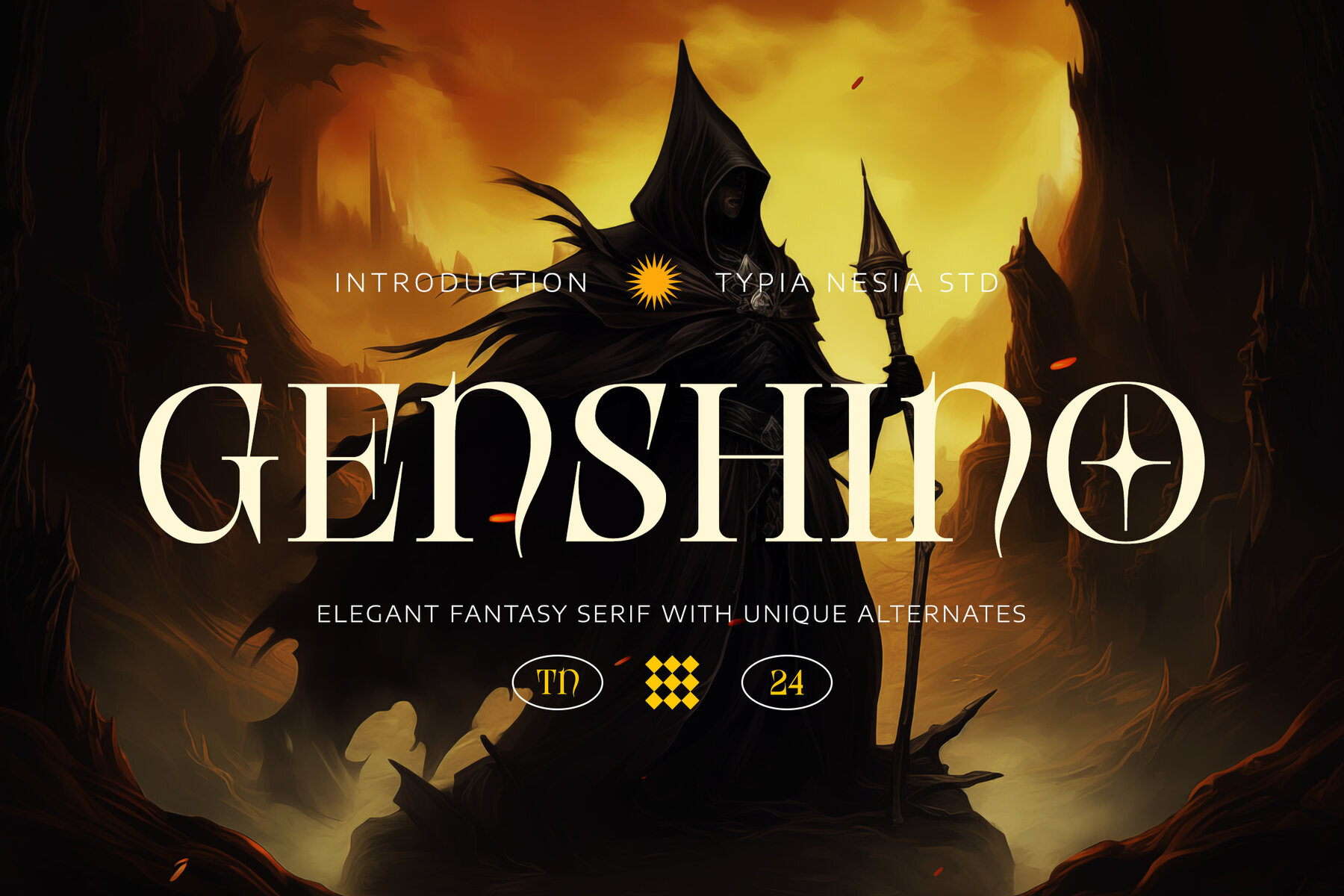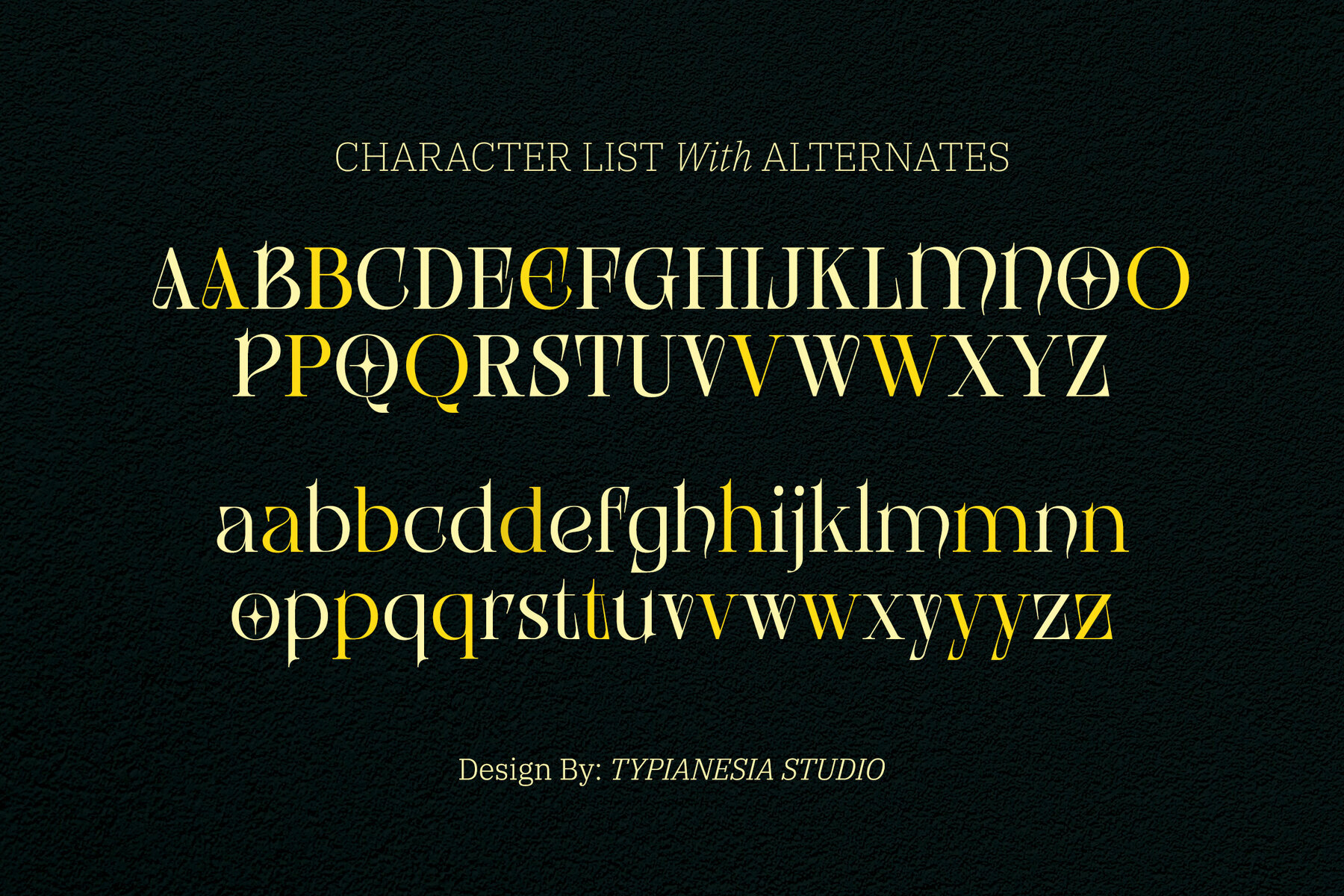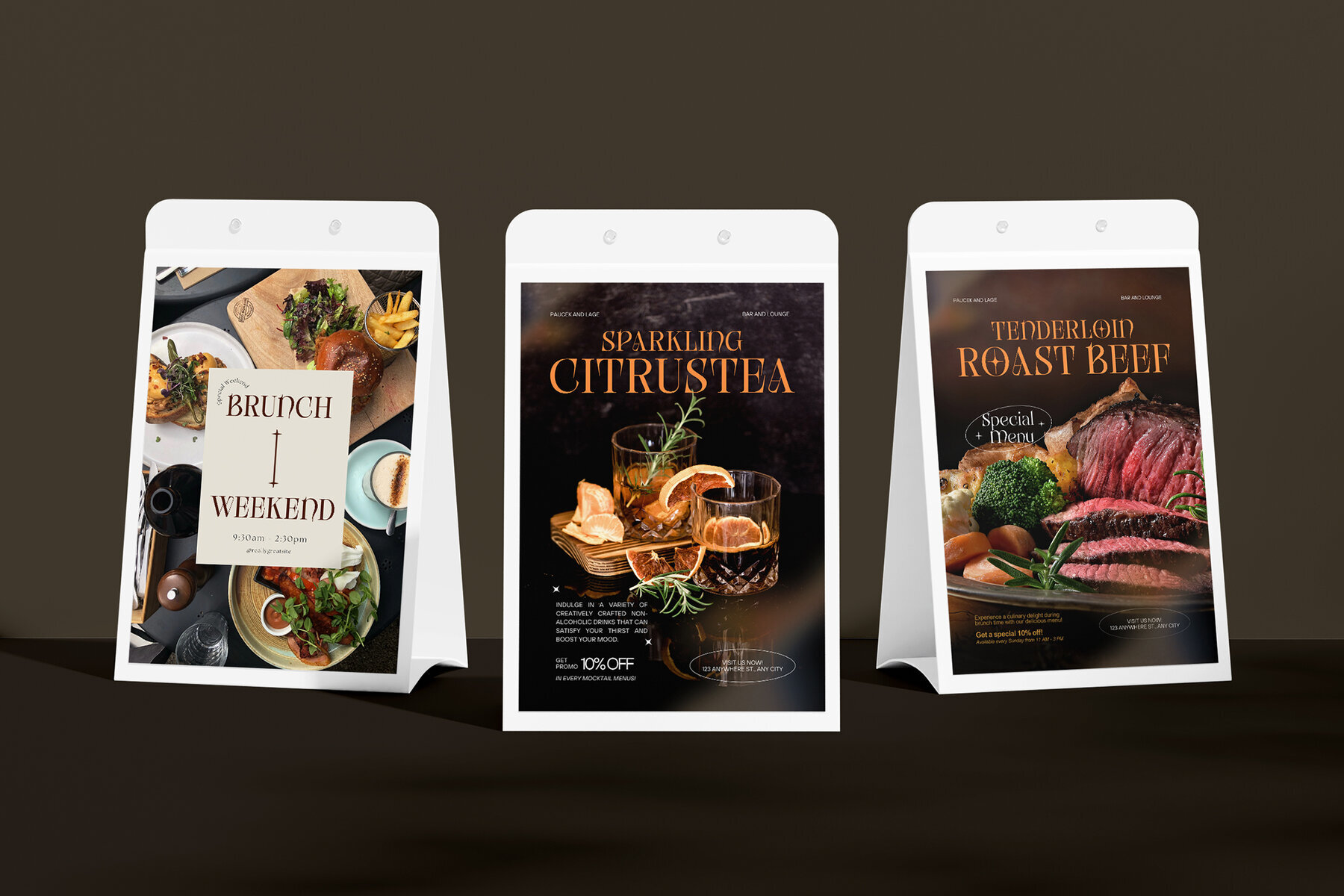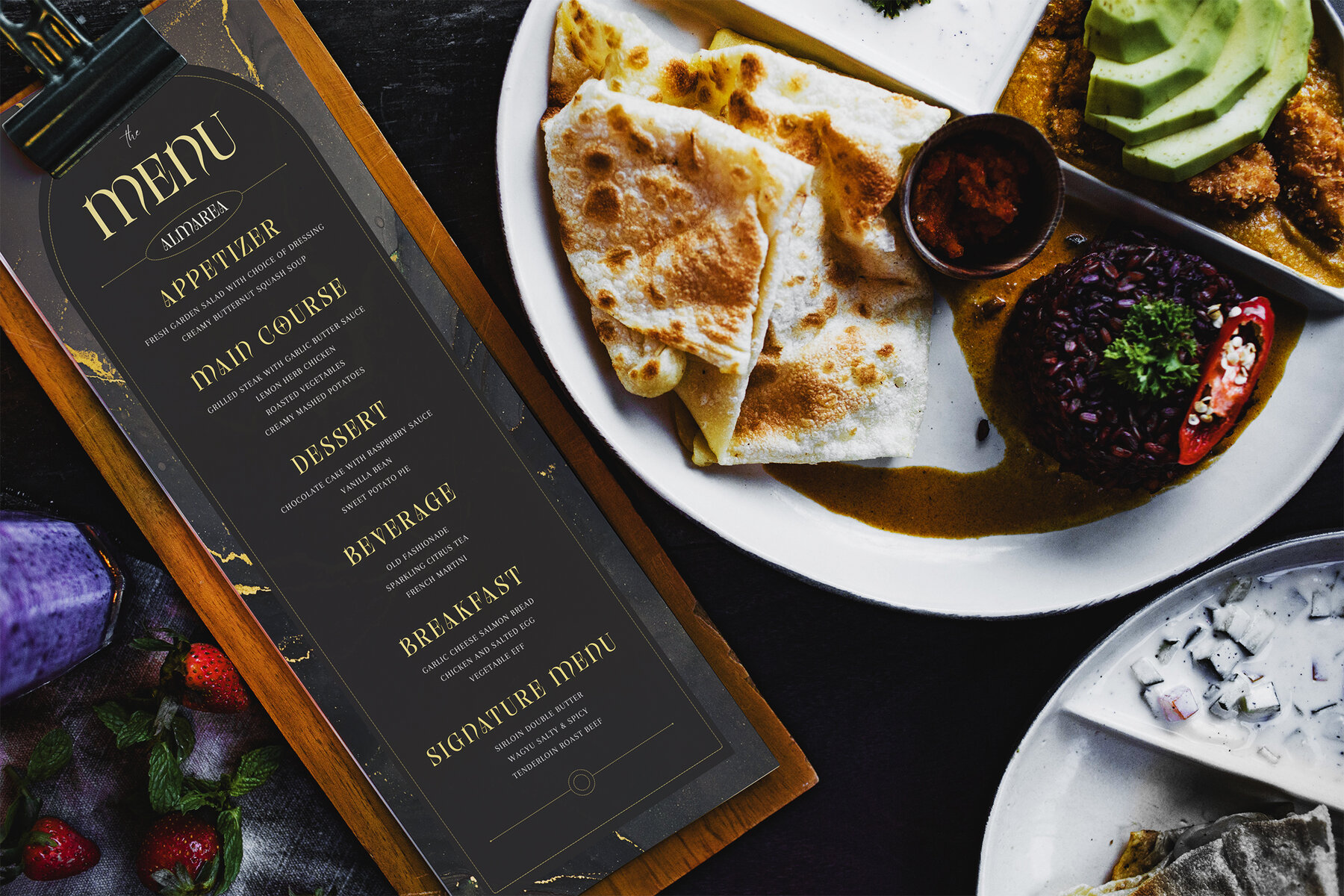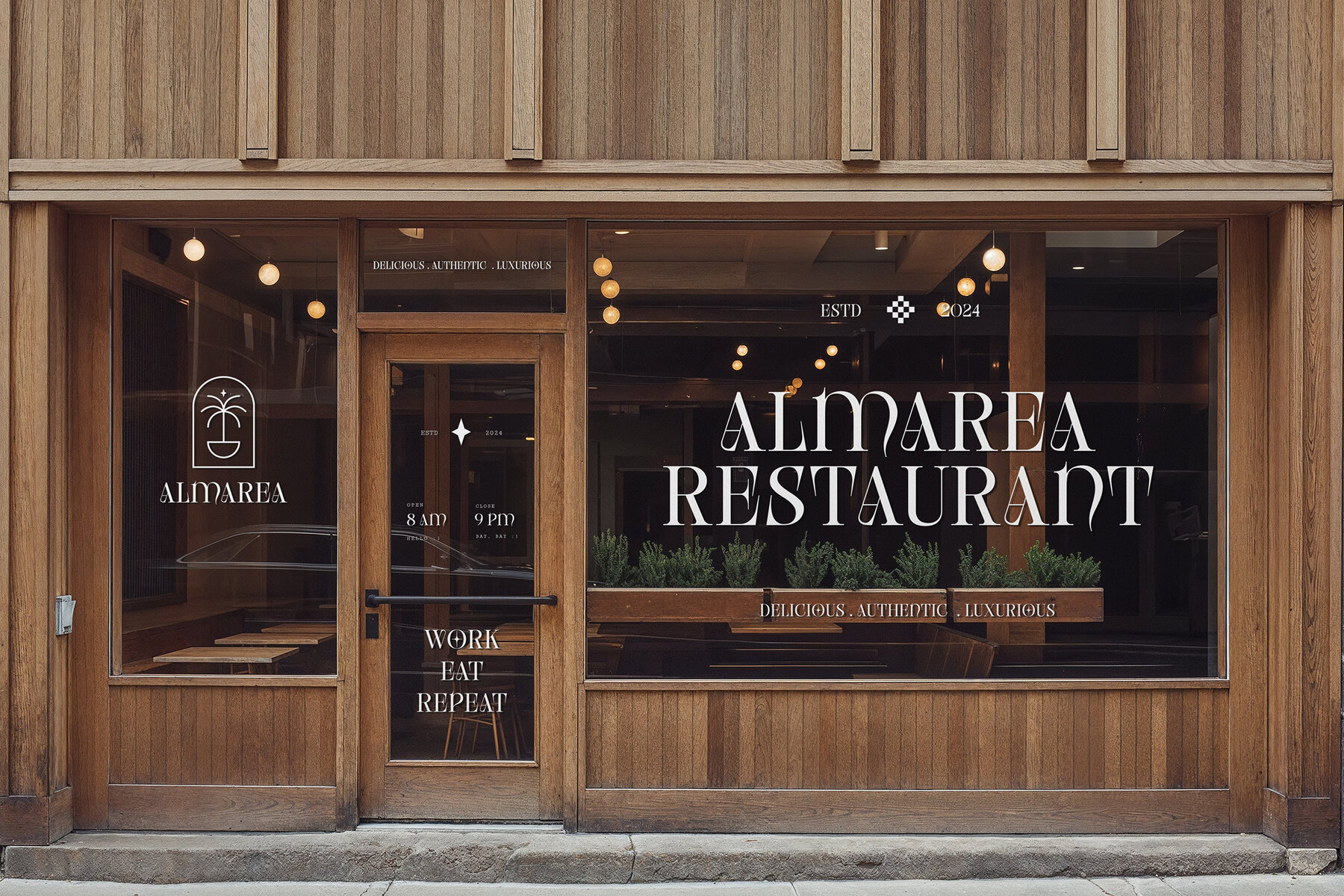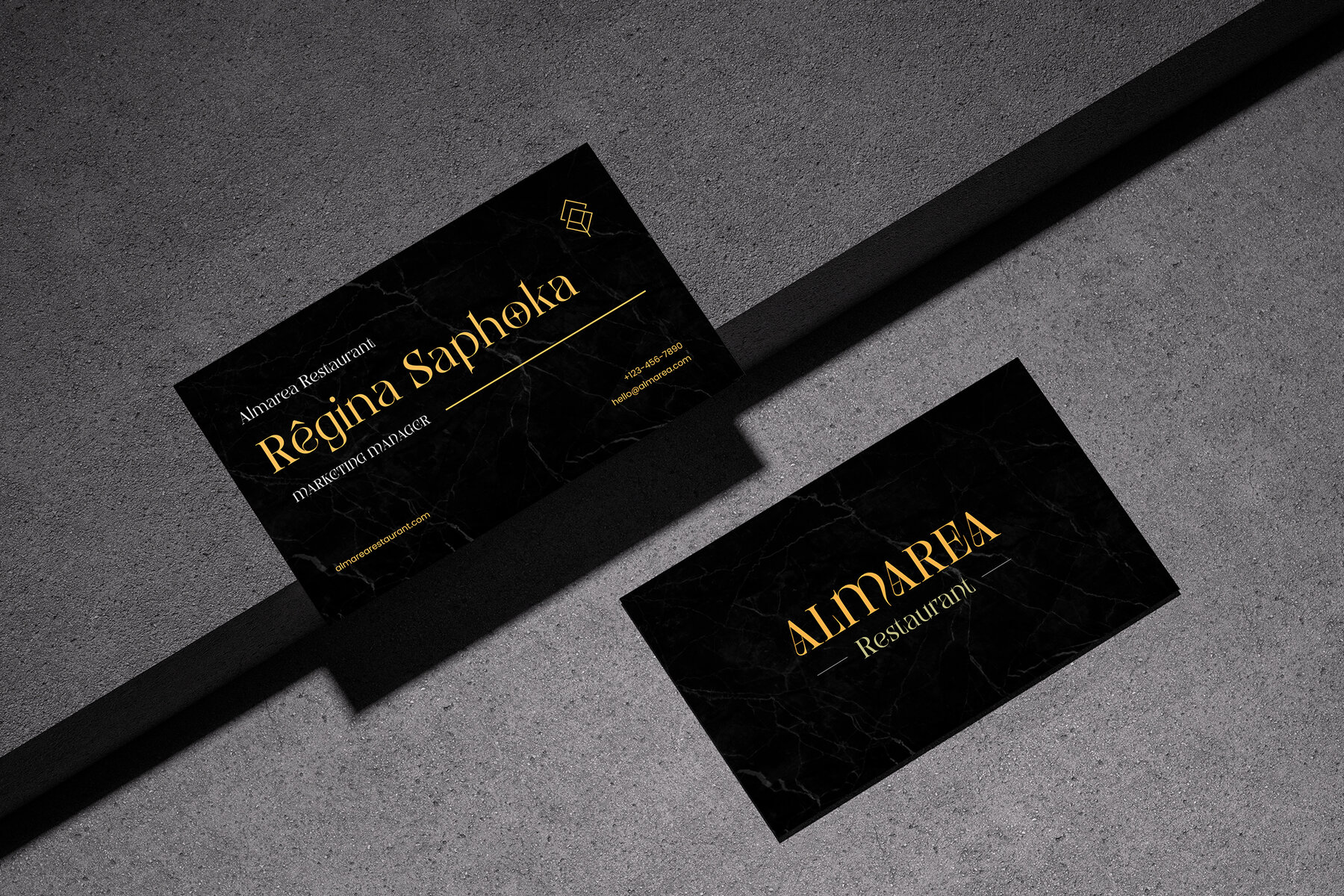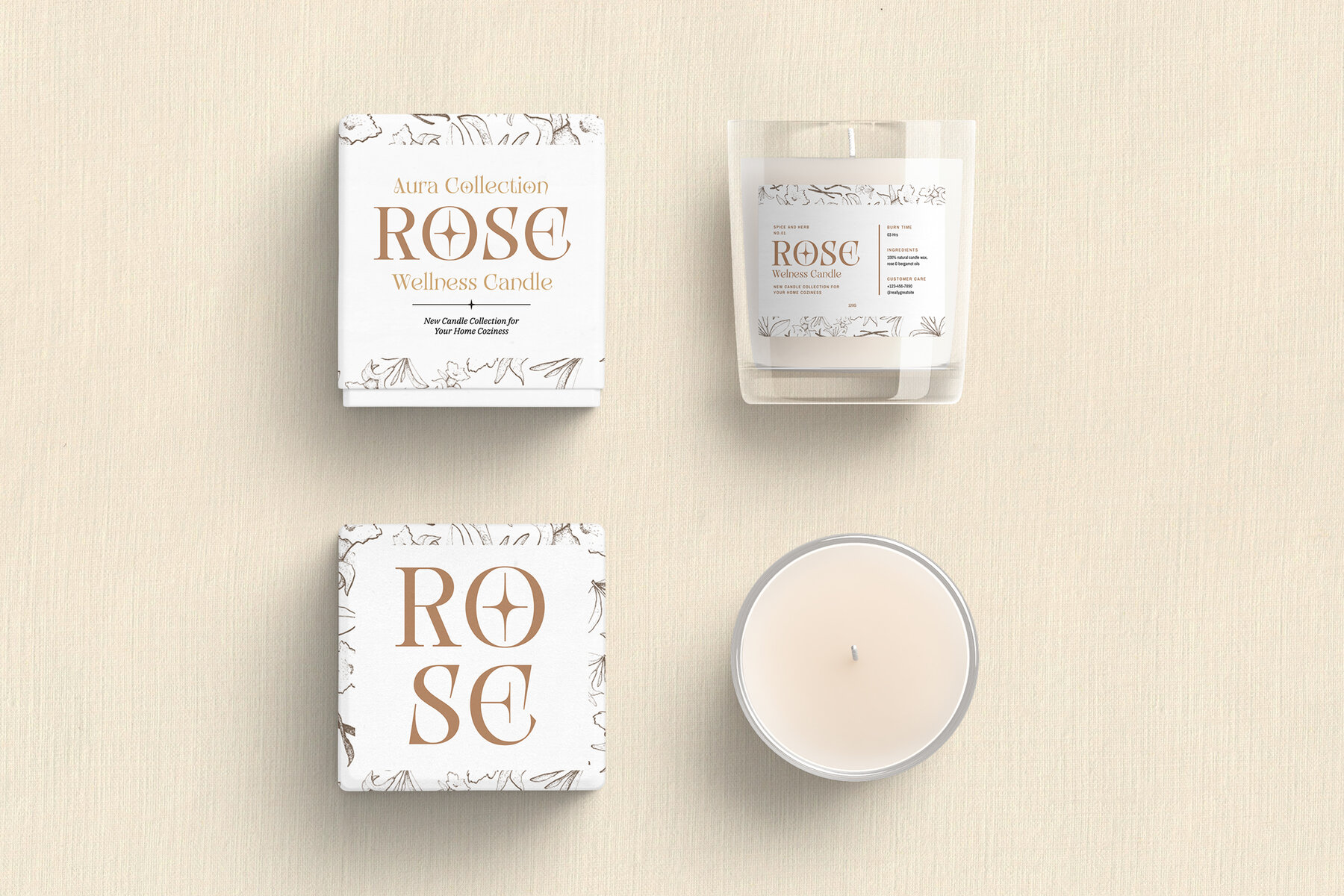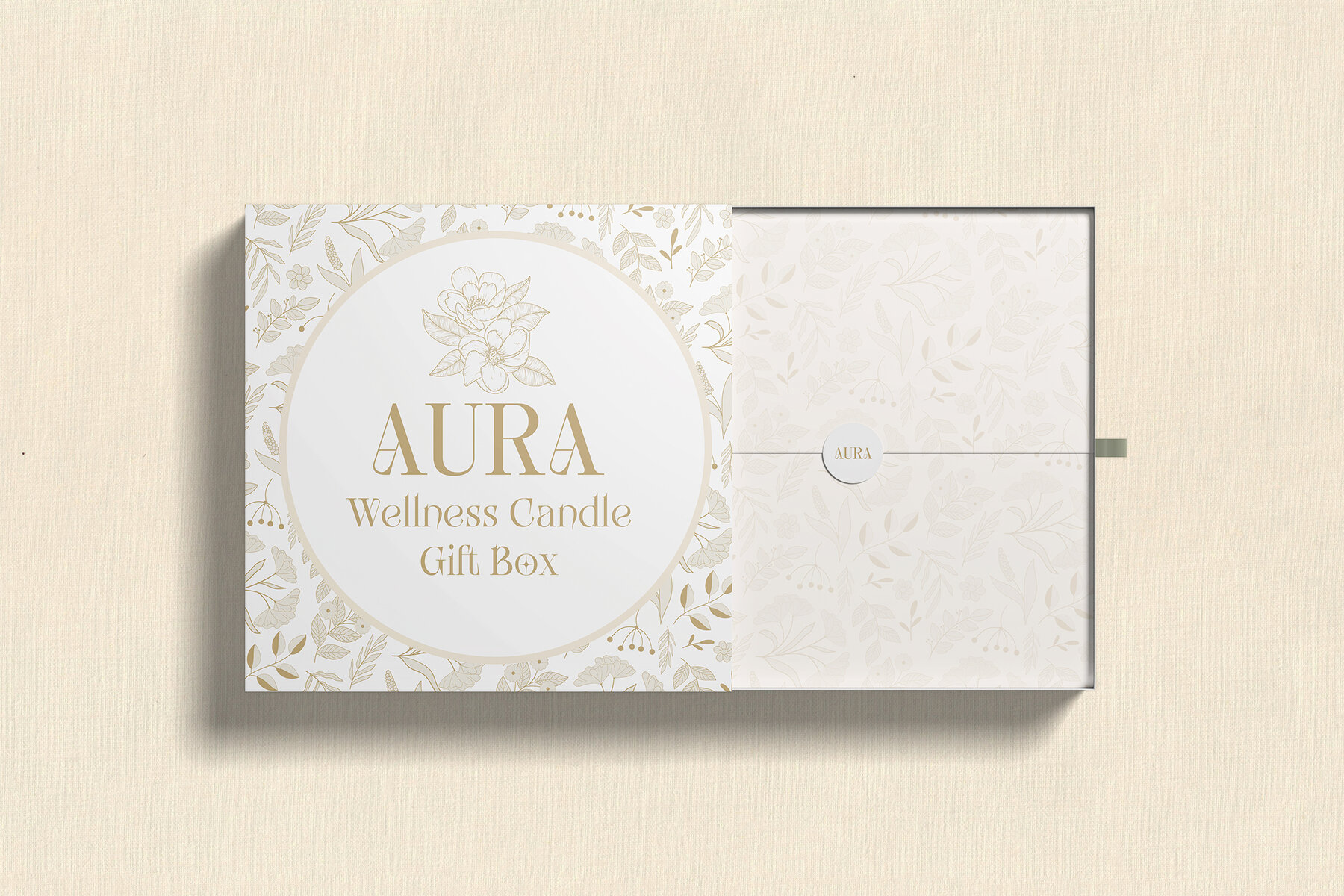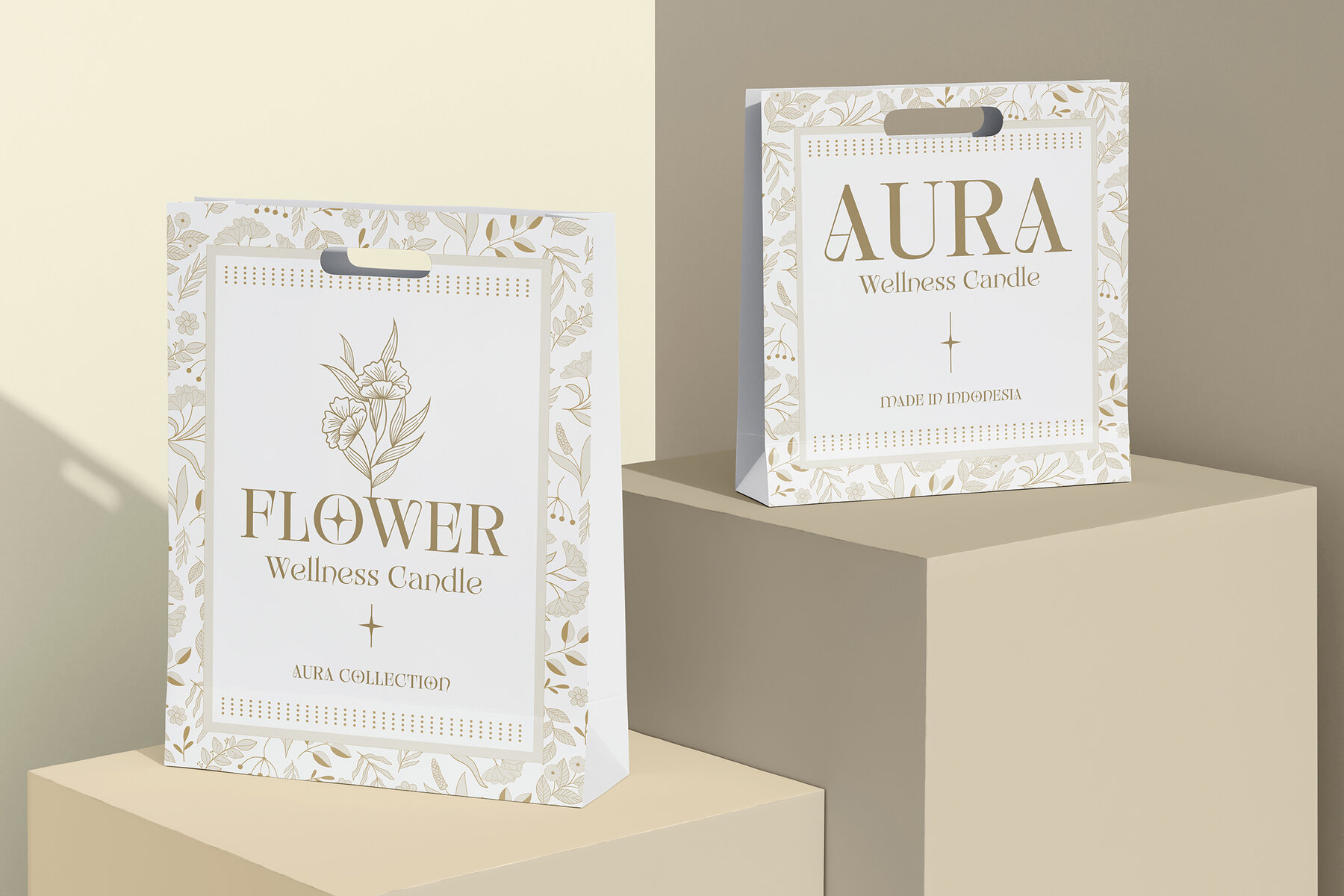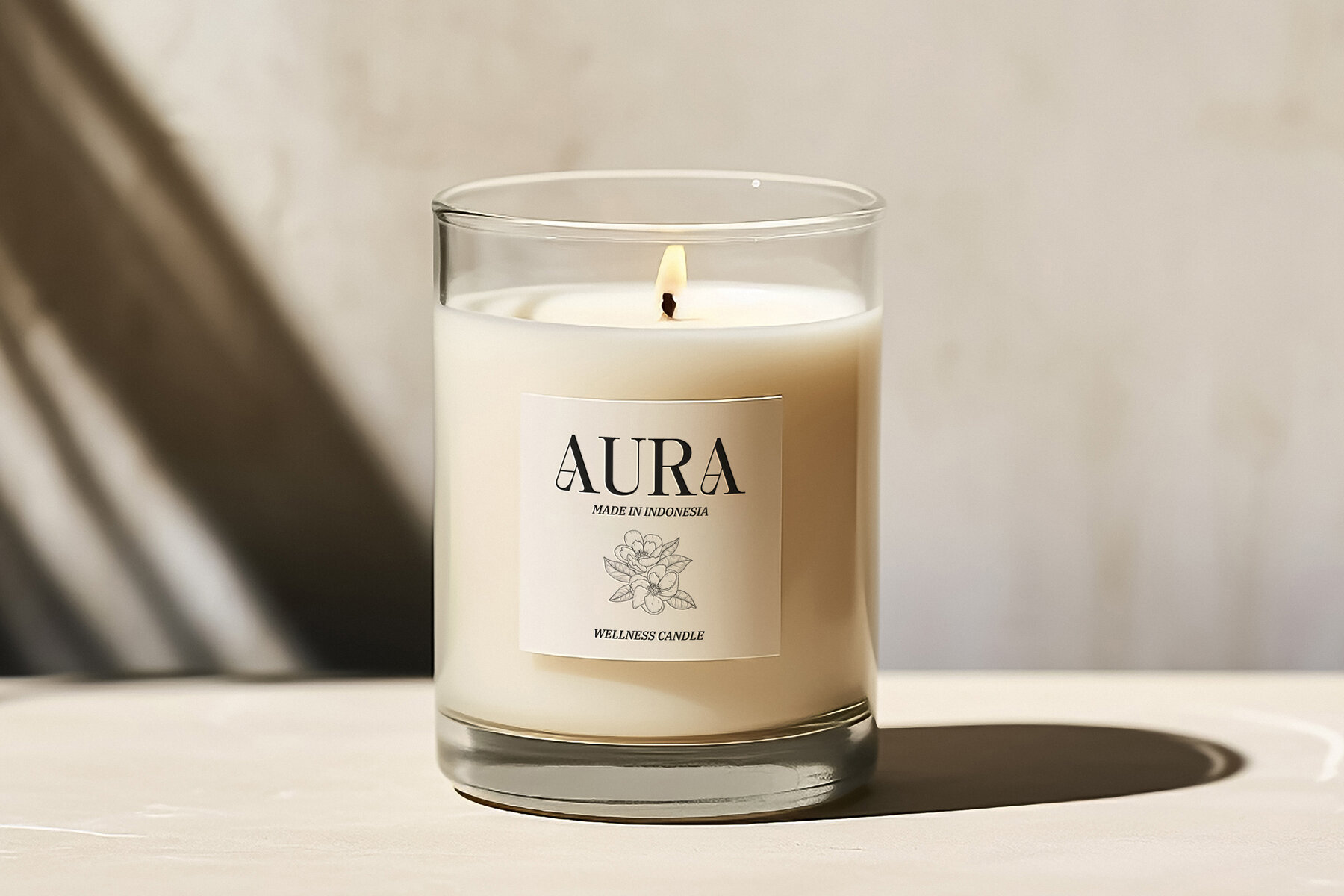
Genshino Font
Genshino Regular
Genshino is an elegant fantasy serif font featuring unique alternates that blend sophistication with a touch of whimsy. Its graceful and imaginative design elements make it perfect for projects requiring an elegant yet fantastical touch. Ideal for branding, book covers, wedding invitations, editorial designs, fantasy gaming, packaging, logo design, and menu design, Genshino adds a magical nuance to both print and digital formats. Its versatility ensures your projects stand out, whether for headlines, body text, or logos.
Packed with features, Genshino includes ligatures for smooth character combinations, a complete set of uppercase and lowercase letters, punctuation, numerals, and a variety of unique alternates. It also offers extensive multilingual support, making it a versatile choice for global applications. Designed with meticulous attention to detail, this font blends elegant aesthetics with fantasy elements, providing a reliable option for designers aiming to craft unique and enchanting visual experiences.